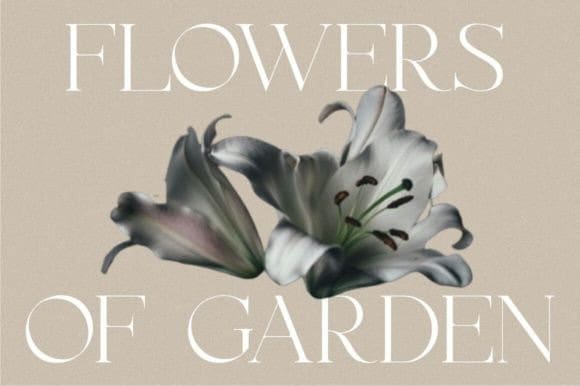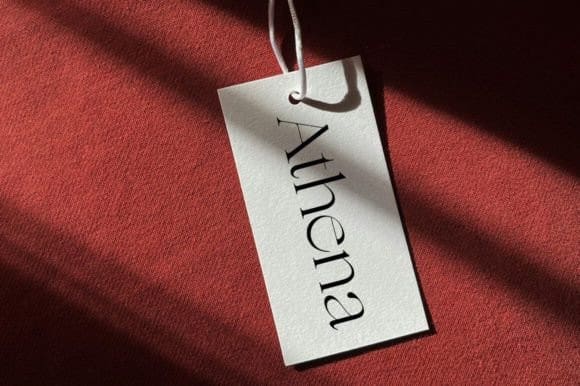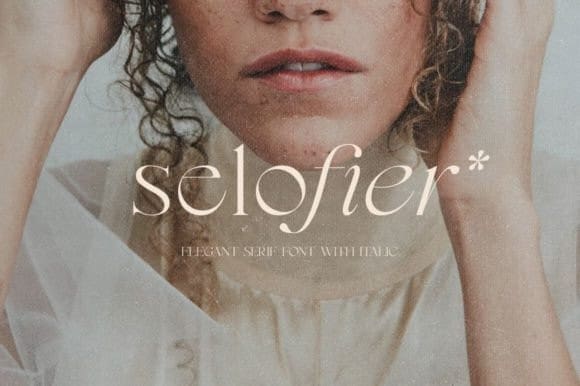
Selofier Font
Selofier Font, an authentic serif family that combines elegance and contemporary flair. Selofier Font is crafted to elevate your most prestigious design projects. It can shine with luxury.
This type of font is perfectly made to be applied especially in logos, headlines, signage, and other various formal forms such as invitations, labels, logos, magazines, books, greeting/wedding cards, packaging, fashion, makeup, stationery, novels, labels, or any advertising purpose. This product was created to help you make your digital images even more beautiful and unique.